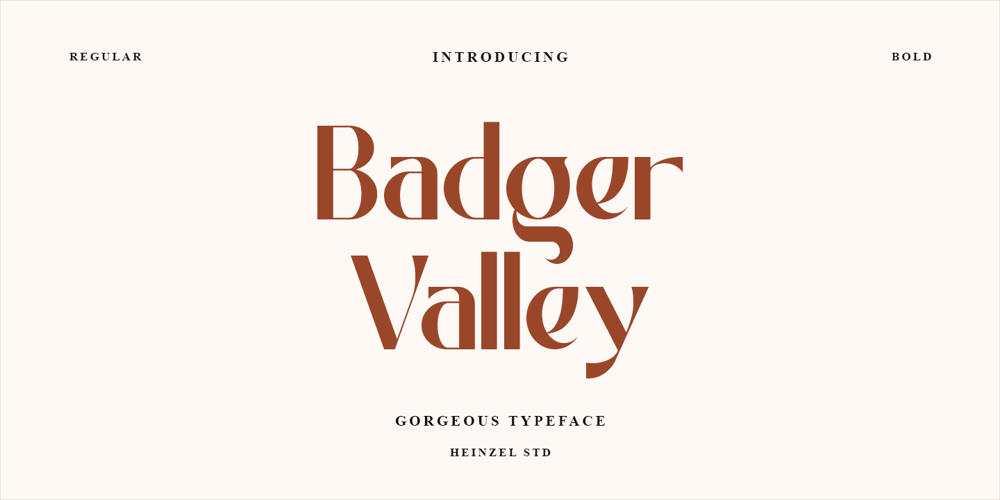
Badger Valley Font Family was designed by Nofi Sofyan Hadi and published by Heinzel Std. Badger Valley contains 4 styles and family package options. Badger Valley is an elegant and modern sans-serif font. Fall for its ravishing style and use it to create gorgeous wedding invitations, beautiful stationary art, eye-catching social media posts, and much more! This font is PUA encoded which means you can access all of the amazing glyphs with ease!Features : Badger Valley Regular, Bold, and Italic versions, sans serif font, Numerals, and more punctuations. Multilingual support for various languages